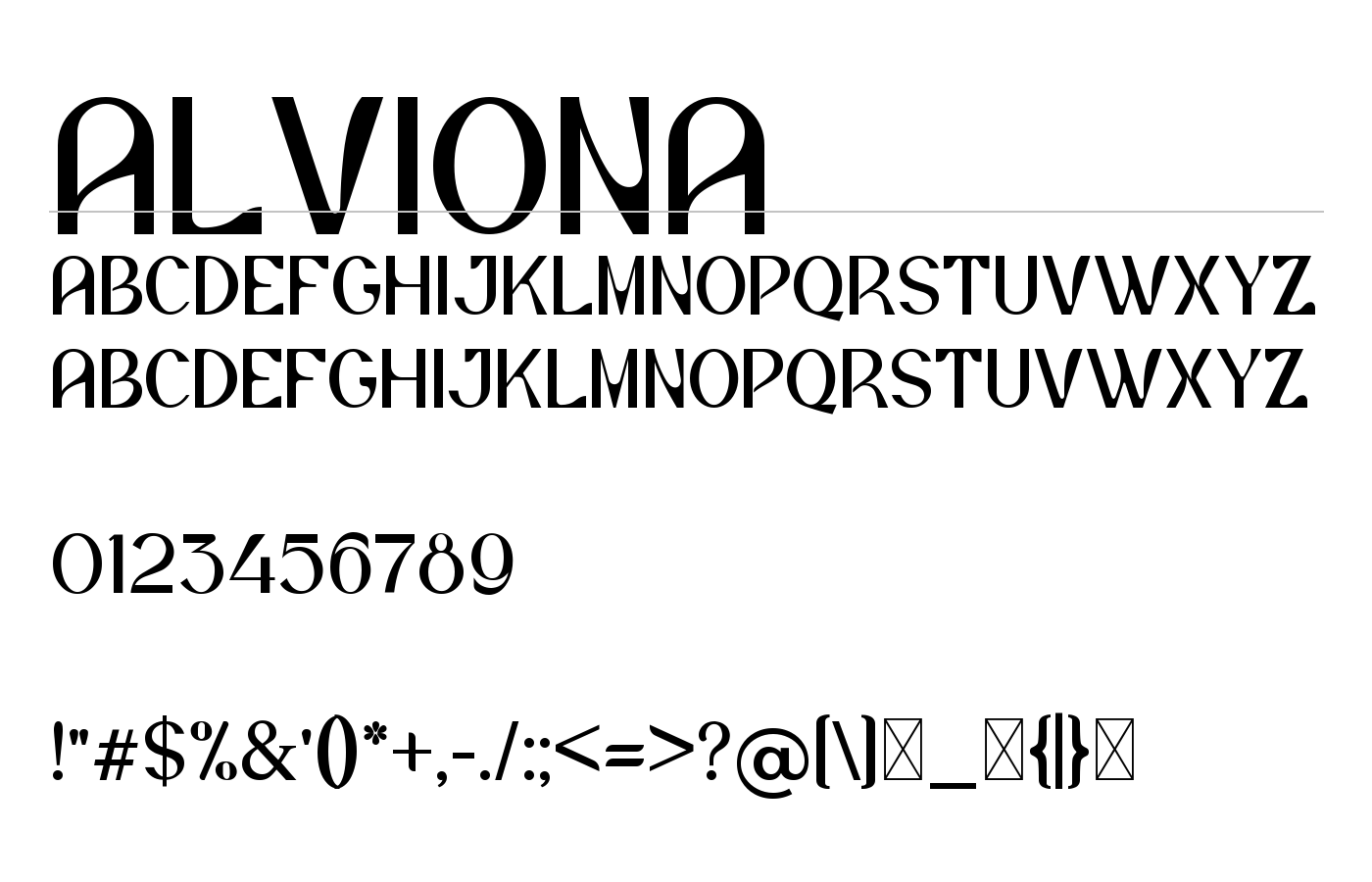
Alviona is a distinctive serif font featuring tall, narrow letterforms with high contrast between thick and thin strokes, giving it an elegant and sophisticated appearance. Its unique curved details and sharp serifs blend vintage charm with a modern, artistic touch, making it ideal for fashion branding, luxury logos, and stylish editorial headlines where a refined and memorable impression is desired.
Alviona Font
About Alviona Font